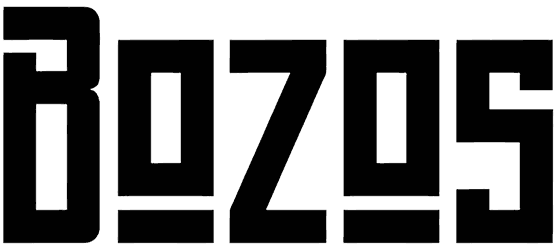
Captiv SystM RemiX Font
Designed byChaosFonts
There are numerous reasons for utilizing a magical techno font such as Captiv SystM RemiX in your graphic content, including social media posts, book covers, logos, business cards, or banner ads.
The first one is leveling up the quality of your work by adding a sense of jauntiness, smudginess, tenderness, or dynamism to it. Secondly, this all-caps font can persuade the audience to follow your editorial projects and increase their efficiency.